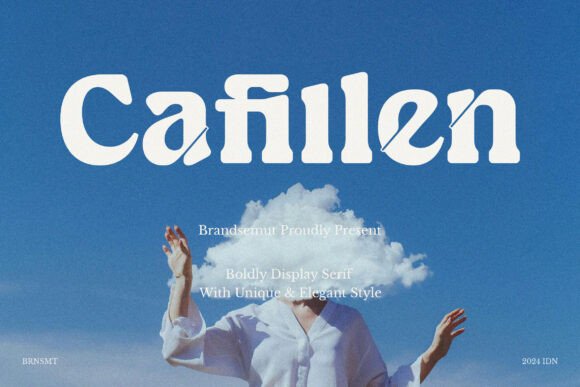
The Elusive Perfect Font: My Encounter with Cafillen
Ah, the quest for the perfect font. We’ve all been there – stuck in the midst of a design project, scrolling through font libraries, and yet, nothing seems quite right. I recall a particularly frustrating experience while working on a luxury branding project for a high-end jewelry client. The brief was simple: create an elegant, sophisticated look that exudes class and refinement. But, as I sifted through font after font, I found myself coming up empty-handed. That was until I stumbled upon Cafillen.
A First Impression of Elegance
Cafillen is an elegant, classy, and modern display serif font that immediately caught my eye. Its clean lines and smooth curves seemed to whisper sophistication, making it perfect for headings, logos, branding, magazines, product packaging, and invitations. What truly sets Cafillen apart, however, are its thoughtful features – ligatures and many alternate characters that add an extra touch of class to any project.
- ✨ Elegant and classy design that’s perfect for luxury brands
- ✅ Extensive features including ligatures and alternate characters
- ✅ Clean lines and smooth curves that add a touch of sophistication
- ✅ Highly versatile for various design projects
While Cafillen is an excellent font, there are a few minor considerations to keep in mind. ⚠️ Some users might find the font requires a bit of tweaking for optimal kerning, especially in longer texts. Additionally, while the font is highly versatile, its elegant nature might make it less suitable for very casual or playful projects.
The Story Behind Cafillen
Cafillen was designed with the intention of bringing a touch of elegance and class to the world of typography. Inspired by the timeless beauty of classic serif fonts, its creator aimed to craft a font that would be both modern and sophisticated. The result is a versatile typeface that can elevate any design project with its refined features and beautiful lines.
Q: Is Cafillen suitable for body text?
A: While Cafillen is primarily designed as a display font, its readability allows it to be used for short paragraphs of body text. However, for longer texts, a more traditional serif or sans-serif font might be more appropriate.